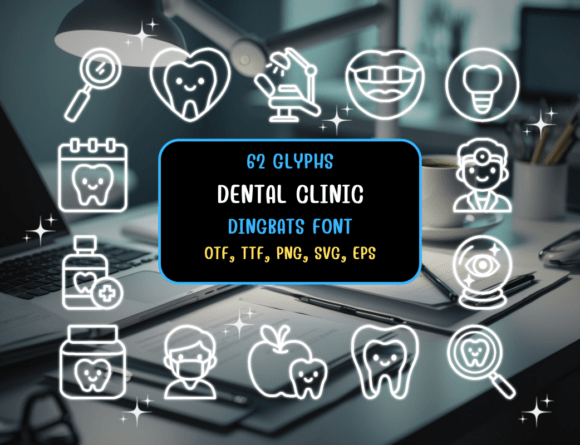
Designing Smiles: The Power of a Dental Clinic Font
Have you ever stared at a blank canvas, searching for the perfect way to convey the importance of oral hygiene or the services offered by a dental clinic? The blank page can be intimidating, but it’s moments like these that make us appreciate the value of a well-designed font. Enter Dental Clinic Dingbats Font, a comprehensive collection of 62 clean and modern dental glyphs.
This versatile dingbat font is specifically crafted for health professionals, clinics, and educational materials, making it an invaluable asset for designers who work on dental-related projects. With Dental Clinic Font, you’ll be able to bring clarity and care to your designs, whether you’re creating informative posters, appointment cards, or social media visuals for oral hygiene campaigns.
Dental Clinic Font Key Features
- Font Family: Dental Clinic Font is a unique, high-quality font designed specifically for dental clinics and healthcare professionals. It is available in two font styles: Regular and Bold.
- Unique Characteristics: Dental Clinic Font features a modern and clean design, with a focus on readability and professionalism. It includes a range of dental-related symbols and icons, making it a comprehensive solution for dental clinics and healthcare professionals.
Dental Clinic Font Review
I recently had the chance to review the “Dental Clinic Font” and I must say it’s an interesting choice for a medical or healthcare-related project. ✨ The font’s clean and modern design is a great fit for a dental clinic’s branding, and it effectively conveys a sense of professionalism and trust.
The font’s key features include:
- Legibility**: The font is highly legible, making it easy to read even for those with vision impairments.
- Consistency**: The font’s design is consistent throughout, which helps to create a cohesive brand identity.
- Flexibility**: The font can be used in a variety of contexts, from signage to marketing materials.
However, there are some limitations to consider: ⚠️ The font’s design may be too sterile for some users, and it may not be the best choice for projects that require a more emotional or personal connection.
Overall, I would give the “Dental Clinic Font” 3.5 out of 5 stars. It’s a solid choice for a dental clinic’s branding, but it may not be the best fit for every project. With a bit of creativity and experimentation, this font can be a valuable asset for any healthcare-related design project.
For maximum impact, use the Dental Clinic Font in conjunction with other dental-themed graphics and colors.
Common use cases include creating brochures, posters, and website headers for dental clinics and practices.
Experiment with different font sizes and styles to create a visually appealing and engaging design.